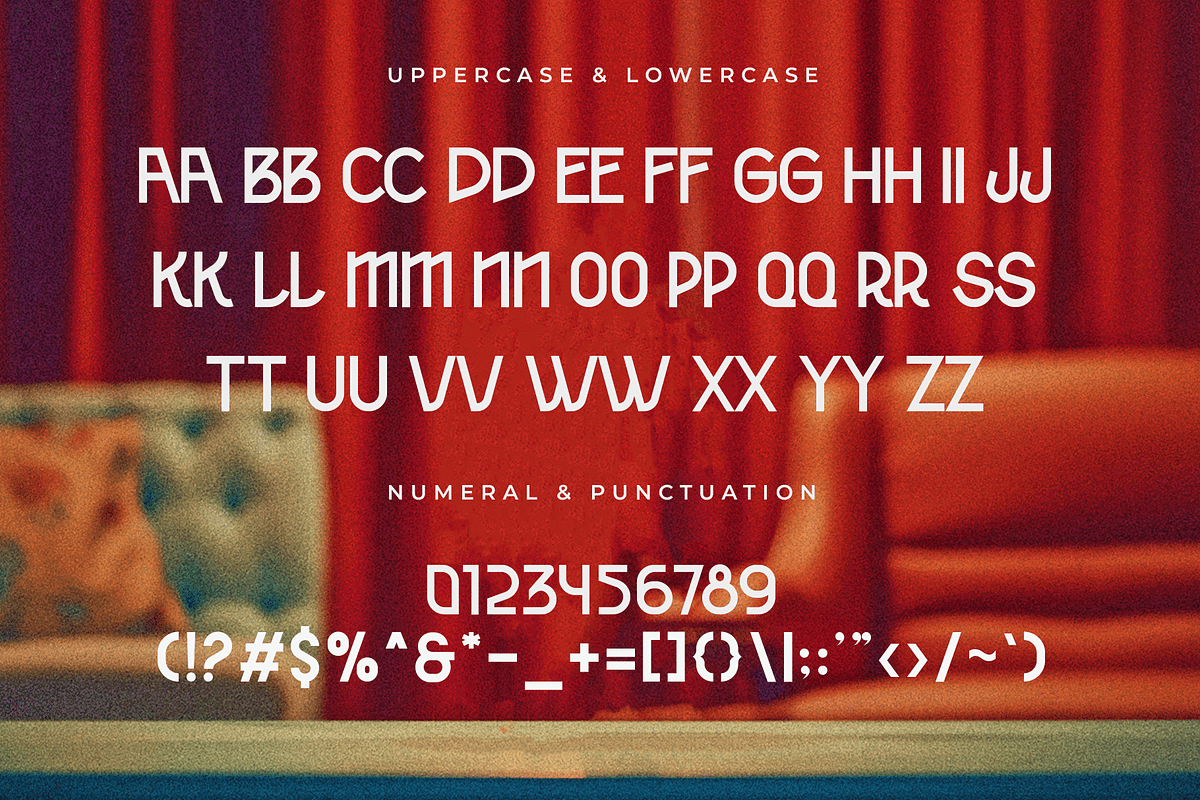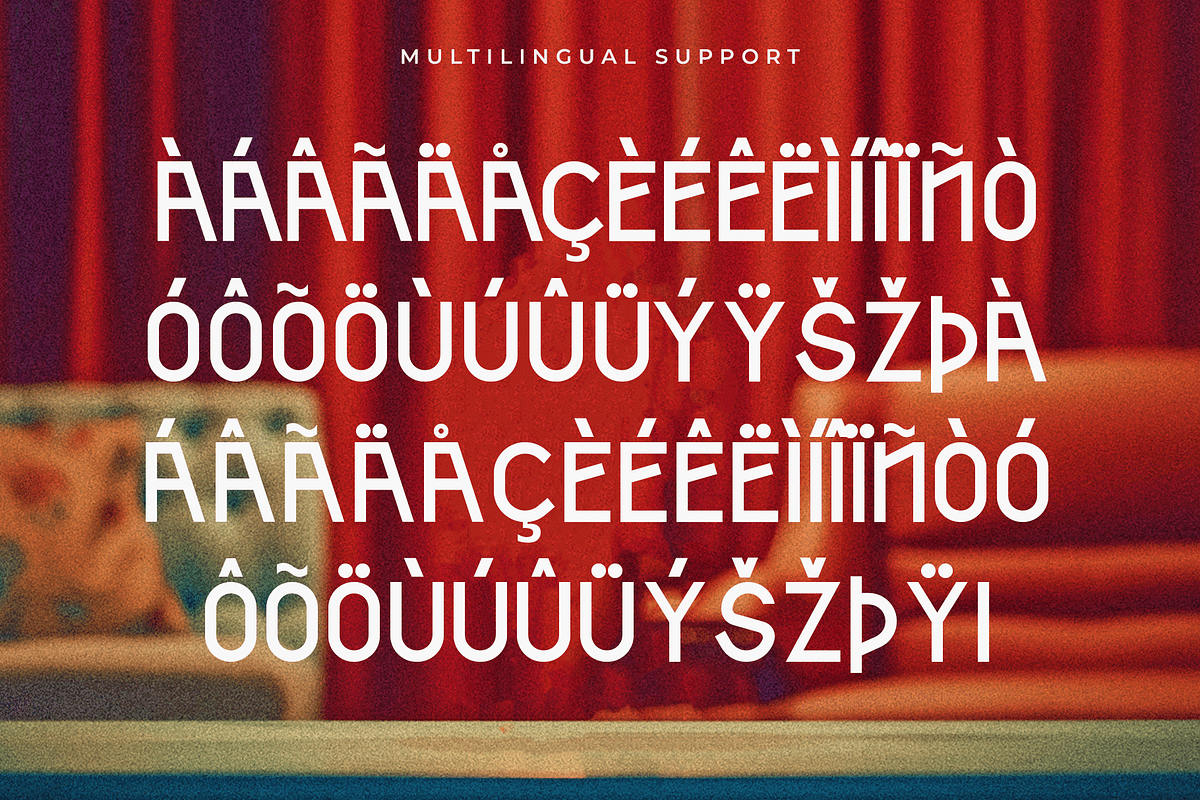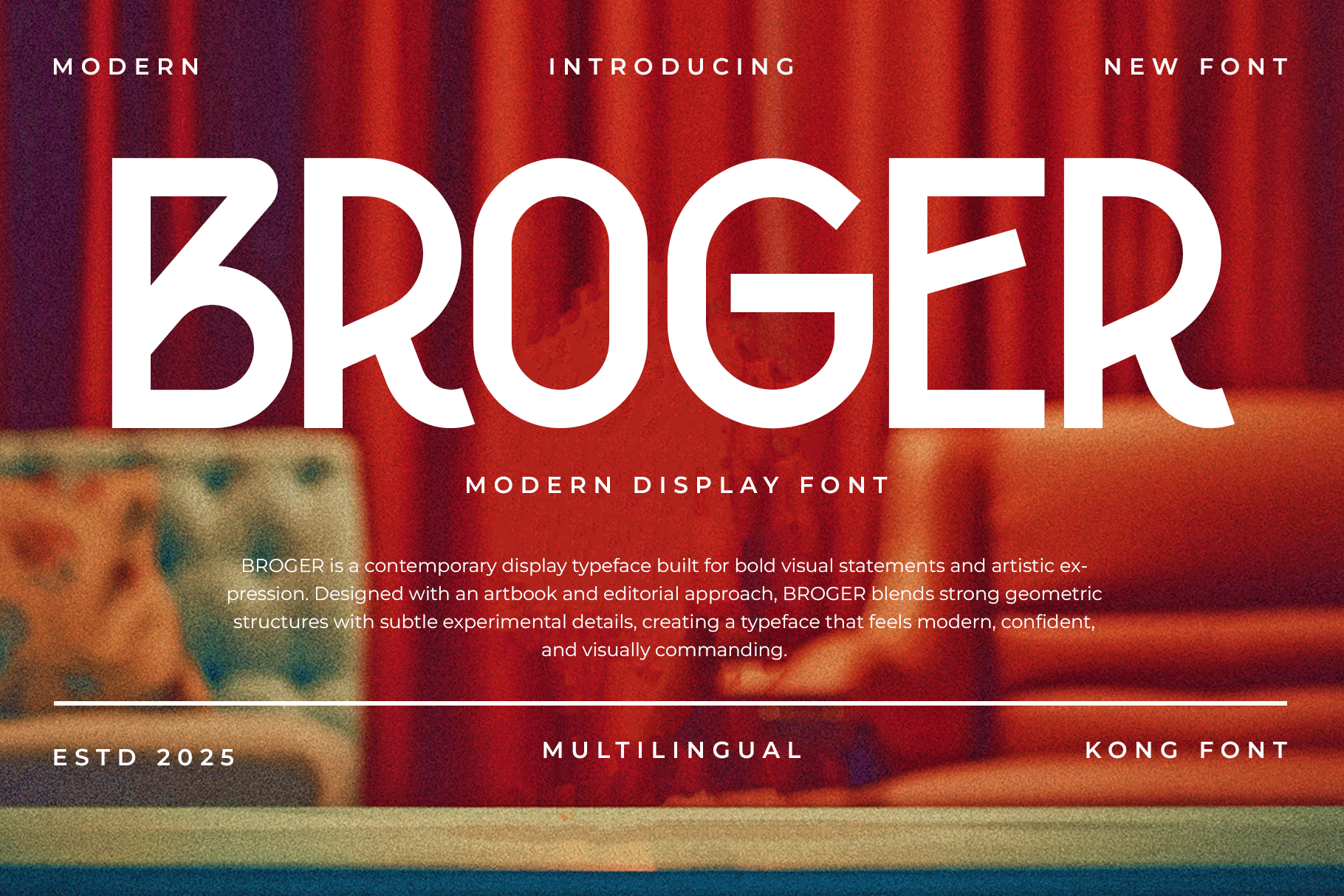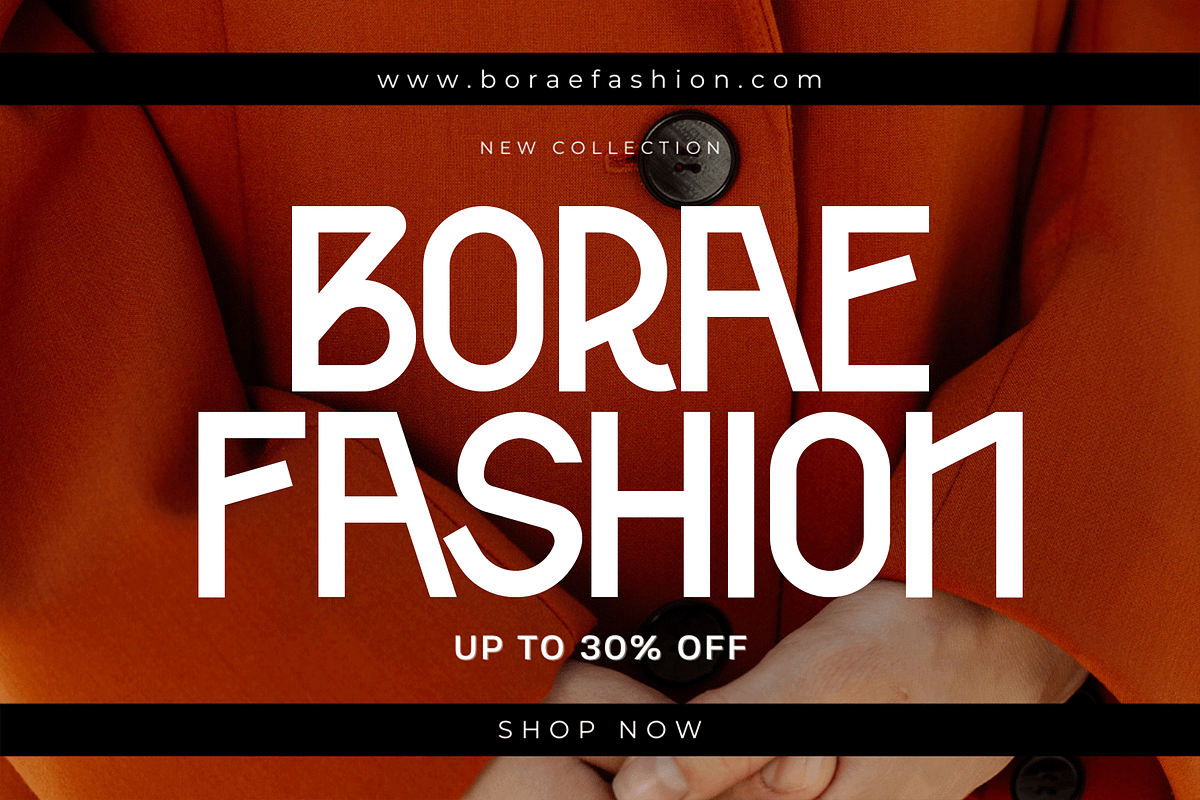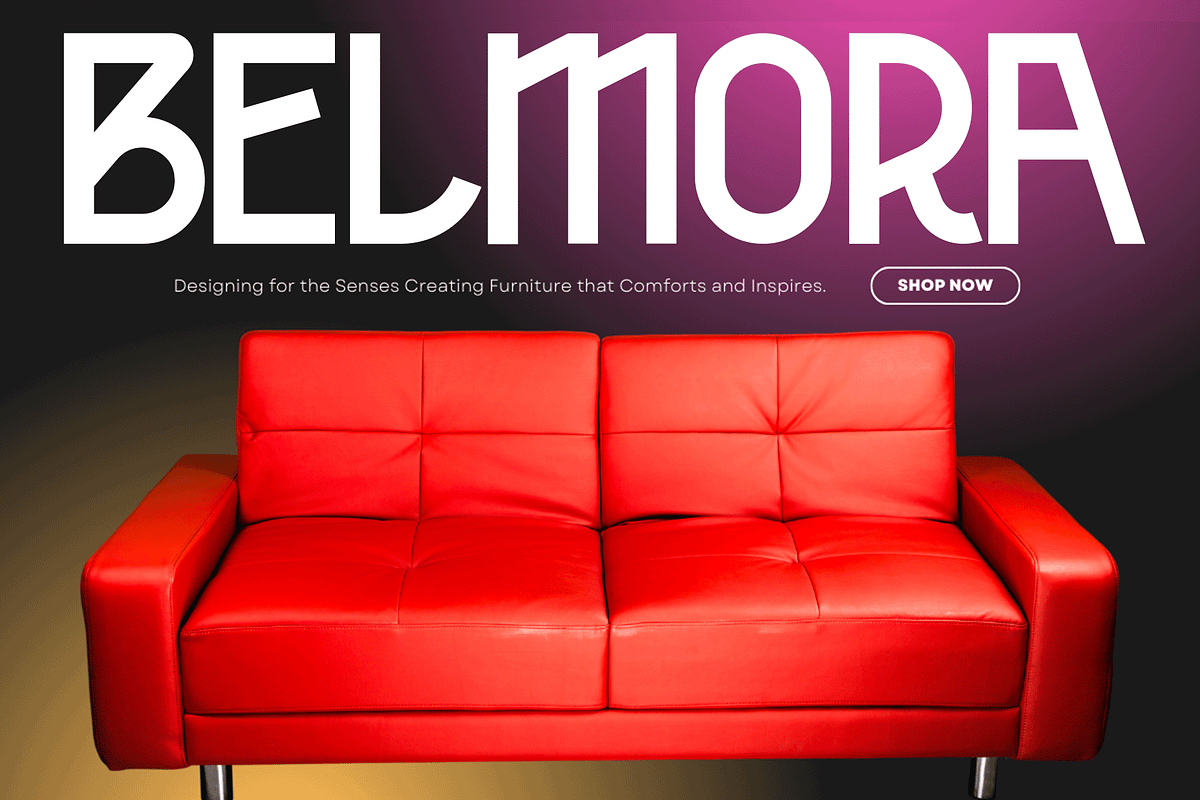
Broger - Modern Display Font
Introducing Broger, a modern display font crafted to deliver strong character and contemporary style in every letter. With its bold forms, clean lines, and confident proportions, Broger is designed to grab attention and make a powerful statement across a wide range of creative projects.
Perfect for logos, headlines, posters, branding, packaging, social media graphics, merchandise, and advertising materials, Broger offers a modern aesthetic that feels both professional and expressive. Its solid structure ensures excellent readability at large sizes while maintaining a striking visual identity.